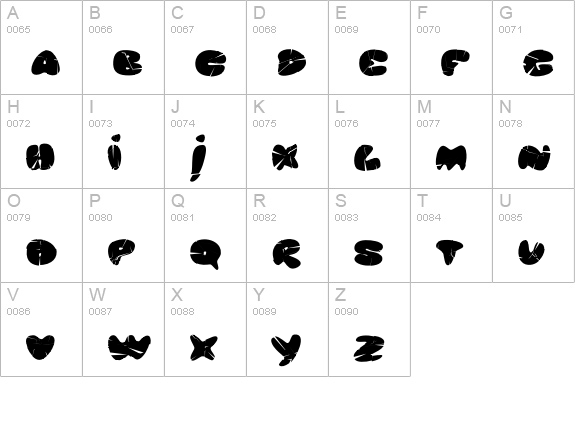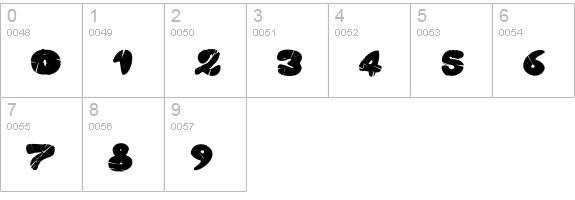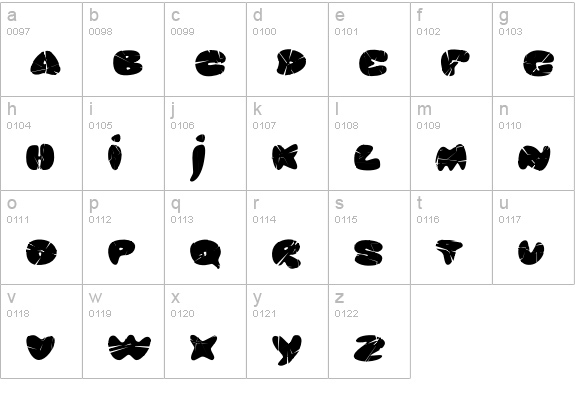
Introducing Glob Crashed font, a bold and dynamic typeface with a touch of edgy sophistication. This font exudes a sense of energy and modernity, making it perfect for projects that require a strong and impactful aesthetic. The distressed and rugged look of Glob Crashed adds a raw and rebellious feel to any design, making it ideal for posters, album covers, and branding materials. What sets Glob Crashed font apart is its versatility and ability to stand out in a crowded sea of typography. Its unique character and personality make it a standout choice for designers looking to make a statement. Whether you're working on a streetwear brand, a music festival poster, or a gritty urban photography series, Glob Crashed font will elevate your work to the next level. The best part? Glob Crashed font is available for free download exclusively at FontsMarket.com. Don't miss out on the opportunity to add this striking and impactful font to your design arsenal. Download Glob Crashed font today and unleash your creativity with this bold and captivating typeface.